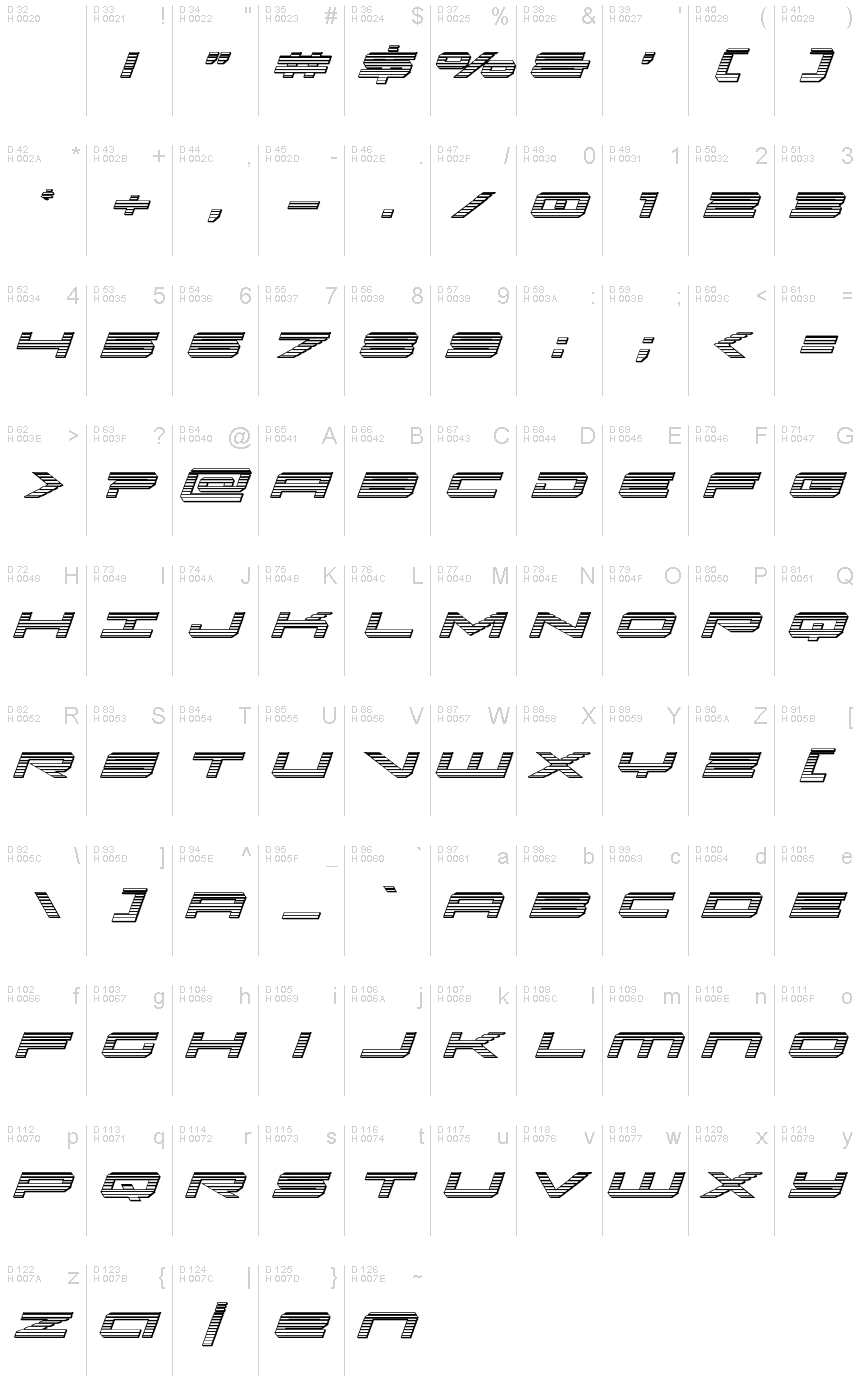
Oramac Chrome Italic
Oramac Chrome Italic is a futuristic and expansive display font that exudes a bold, modern aesthetic. Designed by Daniel Zadorozny, this typeface boasts sharp, angular letterforms and a sleek, metallic appearance that instantly command attention. The expanded width and italicized style lend it a sense of dynamism and forward-thinking vision, making it an excellent choice for eye-catching headlines, impactful branding, and cutting-edge digital interfaces.
Its distinctive character can elevate a wide range of design projects, from sci-fi-inspired posters to high-tech app interfaces, imbuing them with a cutting-edge, futuristic flair.